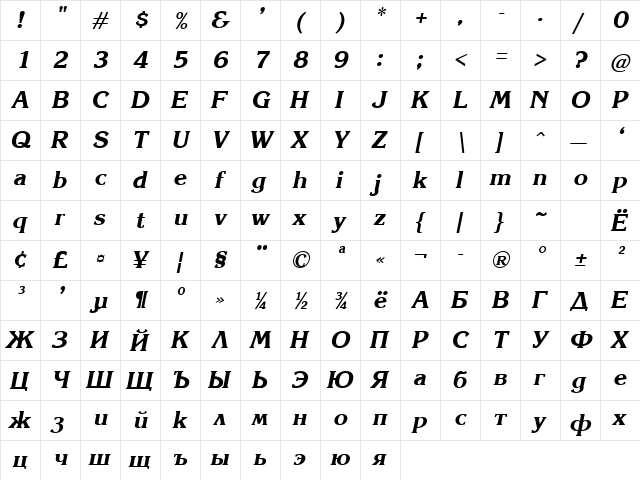
Karelia Bold Italic Font Preview
Karelia Bold Italic
Karelia Bold Italic Font Details
Design Context for Karelia Typeface
Karelia takes a measured approach to typography — its balanced proportions and neutral character make it a reliable workhorse for both digital and print work. The slanted form adds forward momentum and visual energy. Its bold stroke weight gives it real presence on the page.